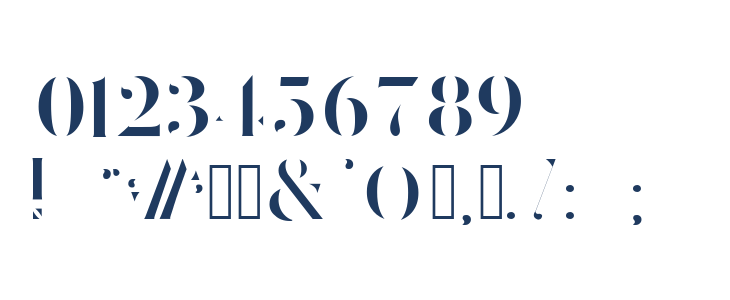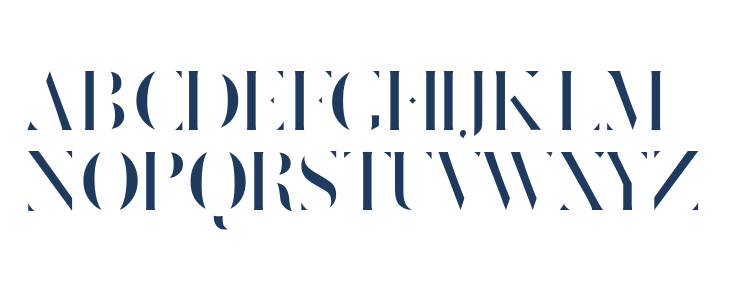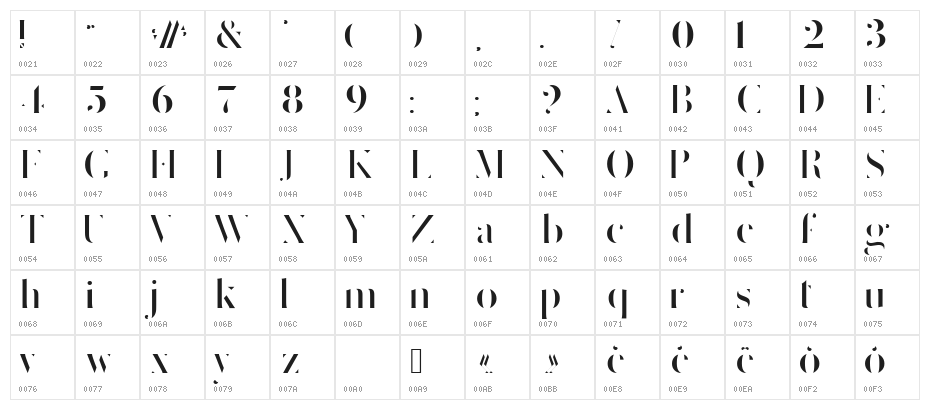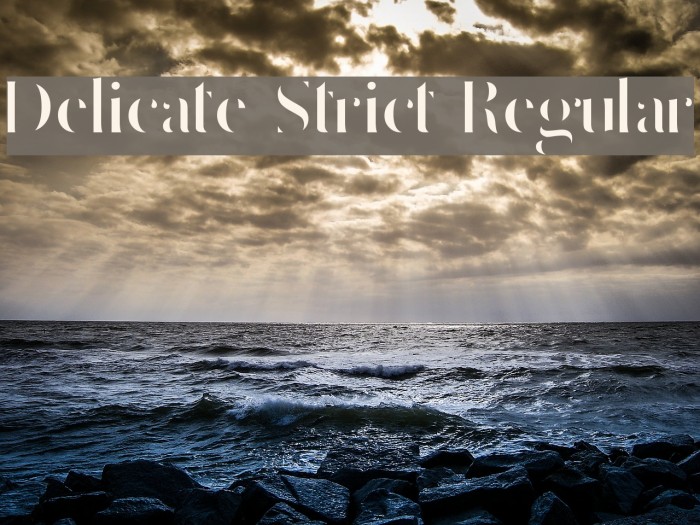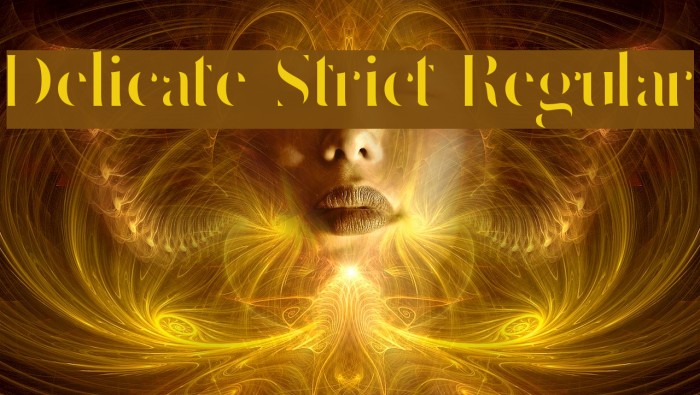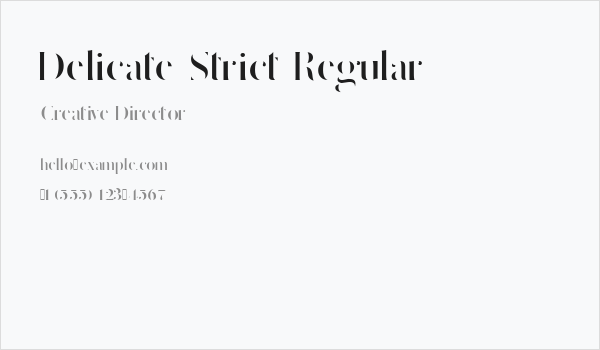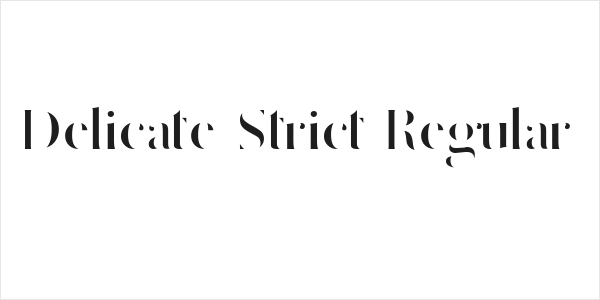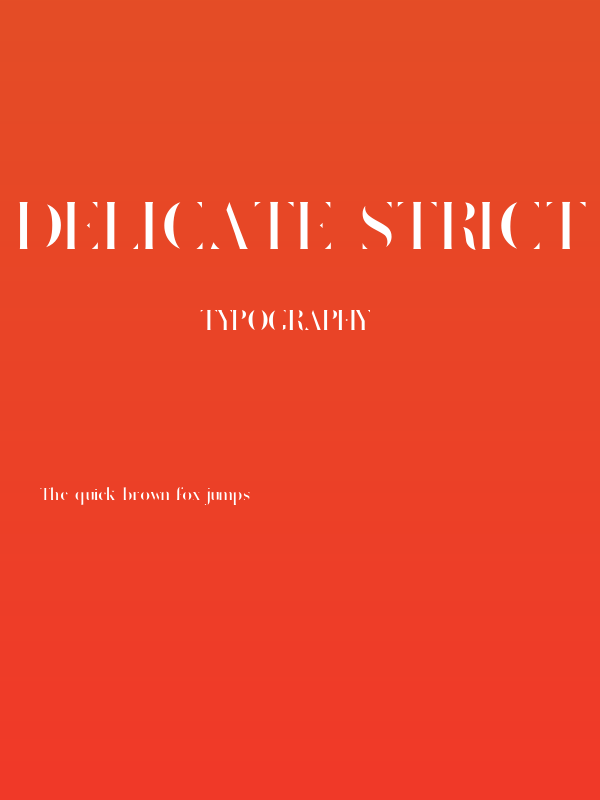
Delicate Strict Regular Font
Delicate Strict Regular Description
This font features a bold and striking design with high contrast between thick and thin strokes, creating a dramatic and eye-catching appearance. The characters are sharply cut with geometric precision, giving them a modern and sophisticated look. The uppercase letters are particularly prominent, with angular cuts and a stencil-like quality that adds to the font's unique style. The lowercase letters maintain this geometric theme, offering a cohesive and harmonious appearance across the typeface. The numerals and special characters are equally well-crafted, ensuring versatility in various design applications.